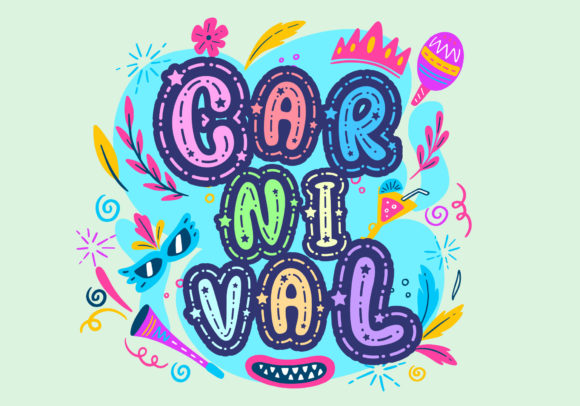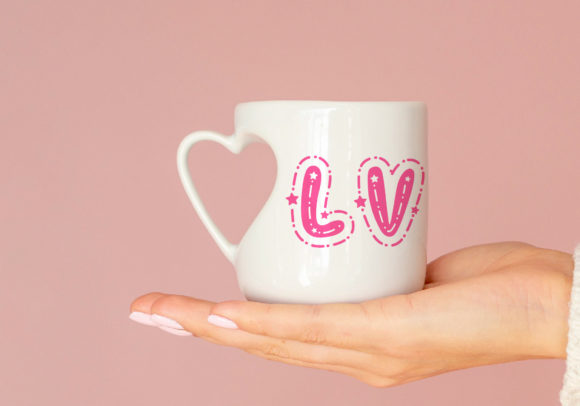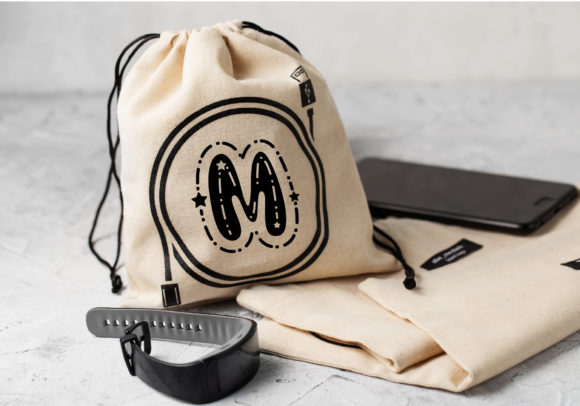
Introduction to Polaris Star Font
Polaris Star is a playful and friendly decorative font.
You can use it to create unique designs, book covers, birthday cards, greeting cards, and so much more .
Why Choose Polaris Star Font?
Polaris Star Font offers exceptional quality and versatility, making it a valuable addition to your design toolkit. Whether you’re creating for personal projects or commercial use, Polaris Star Font delivers professional results.